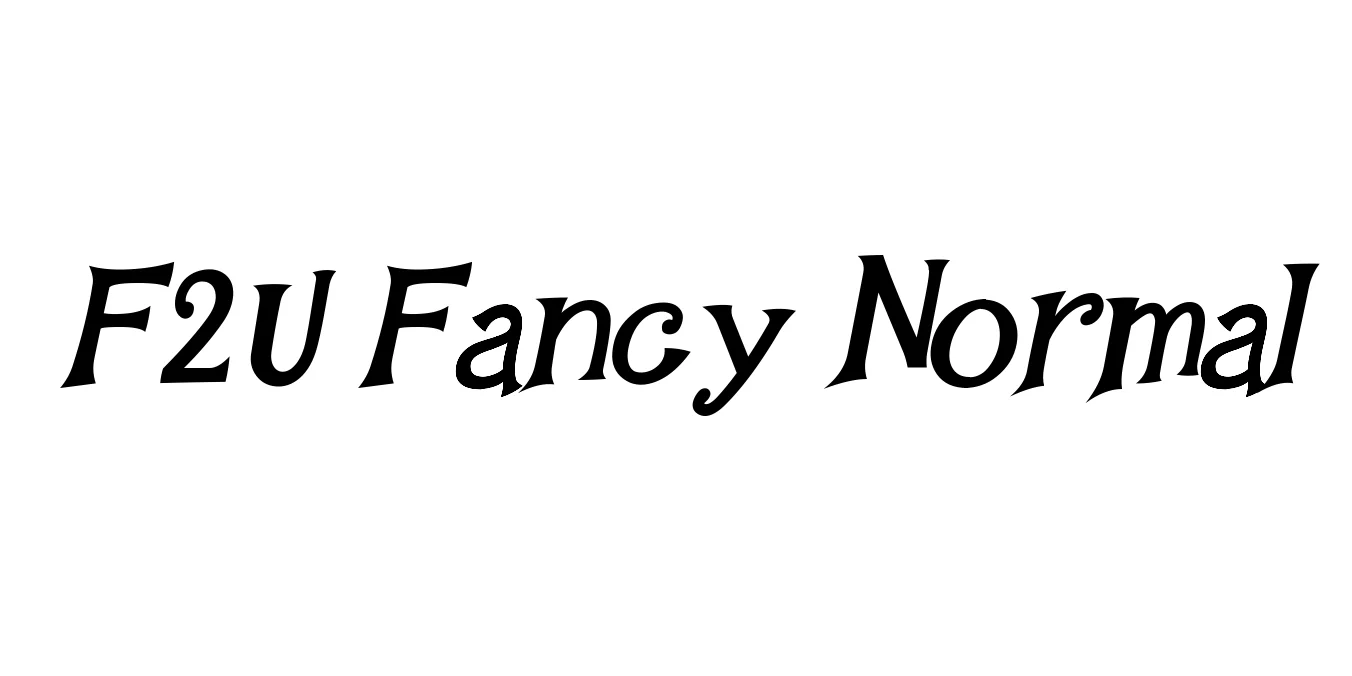
F2U Fancy Normal
Designed by Wino S Kadir
| Category | Serif / Decorative |
| Designer | Wino S Kadir |
F2U Fancy Normal is a sophisticated serif typeface that blends classical elegance with modern clarity. Its high-contrast strokes and refined terminals evoke a sense of luxury and timelessness, making it an ideal choice for projects that require a touch of prestige. The font's architecture is built on balanced proportions, ensuring that even the most delicate details remain legible across various display sizes.
Designed with the aesthetic needs of high-end branding in mind, F2U Fancy Normal excels in layouts that prioritize white space and minimalist beauty. Since its release, it has become a favorite for designers working on fashion editorials and upscale event stationery, providing a clean yet decorative flourish that enhances the visual storytelling of any creative work.
F2U Fancy Normal Best Uses
Creating sophisticated logos for luxury brands and boutiques.
Designing elegant wedding invitations and formal greeting cards.
Usage in high-fashion magazine headlines and artistic titles.
Developing eye-catching social media graphics for premium services.